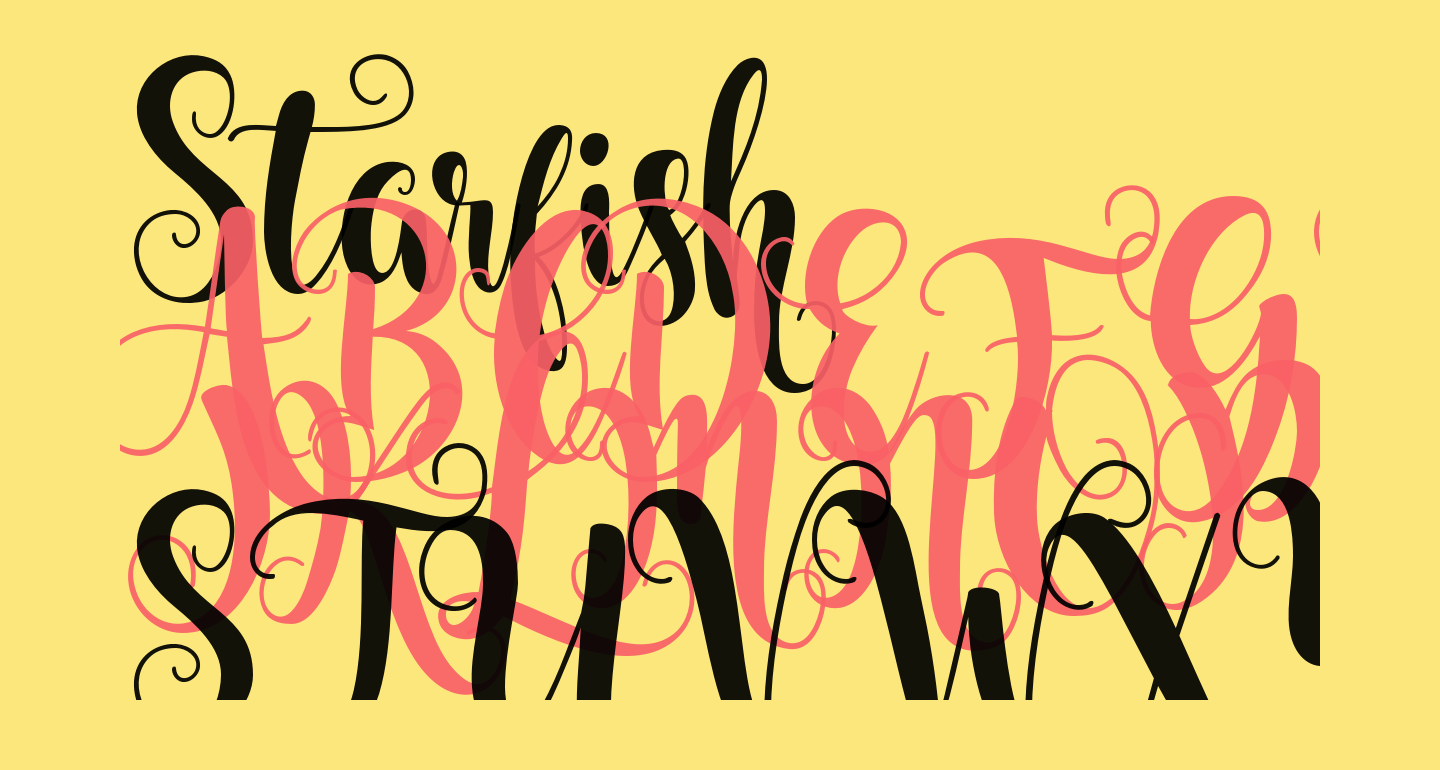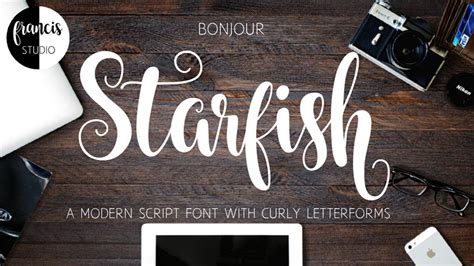
Font Like Starfish . Starfish is a script type font that can be used on any device such as pc,. Web starfish font download is available free from fontget.